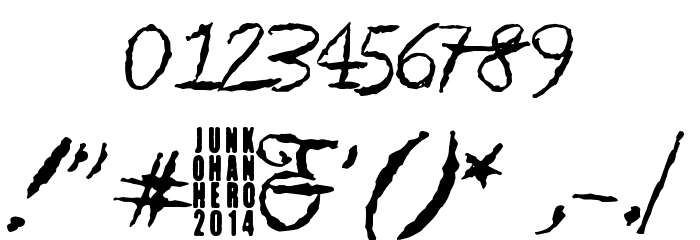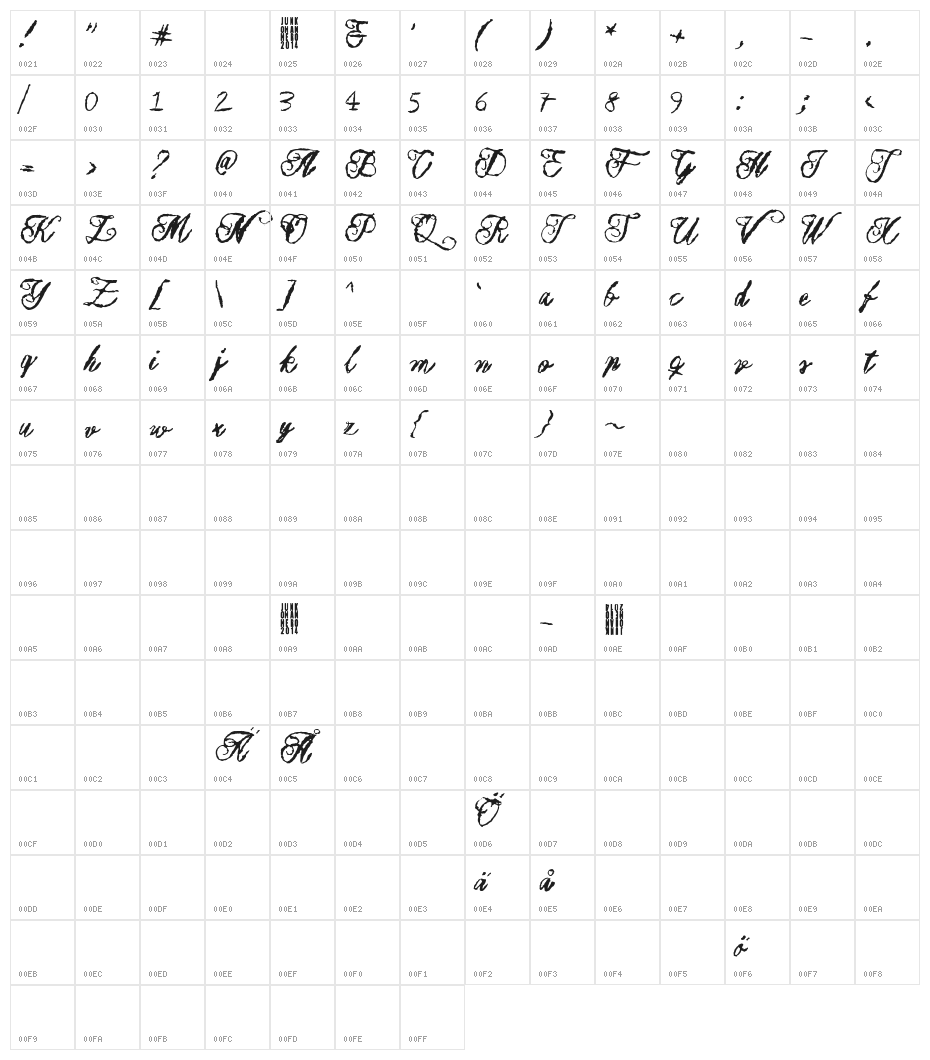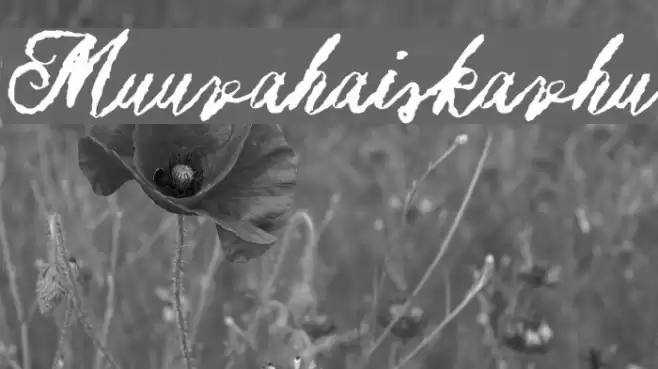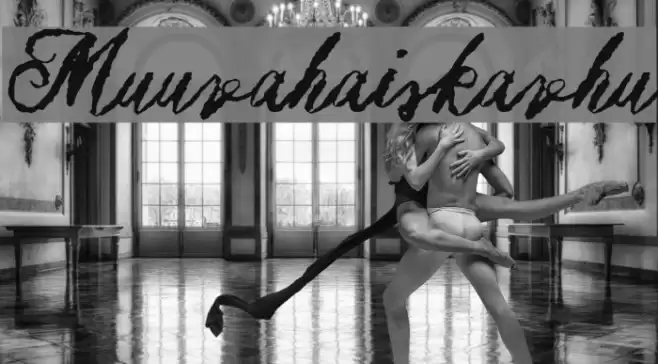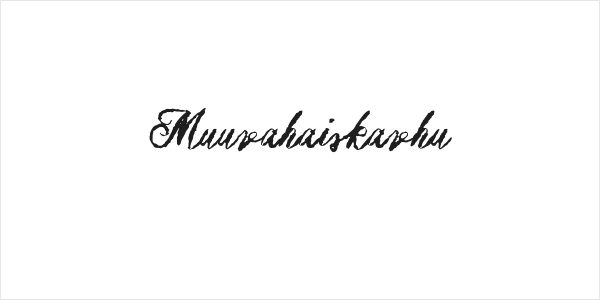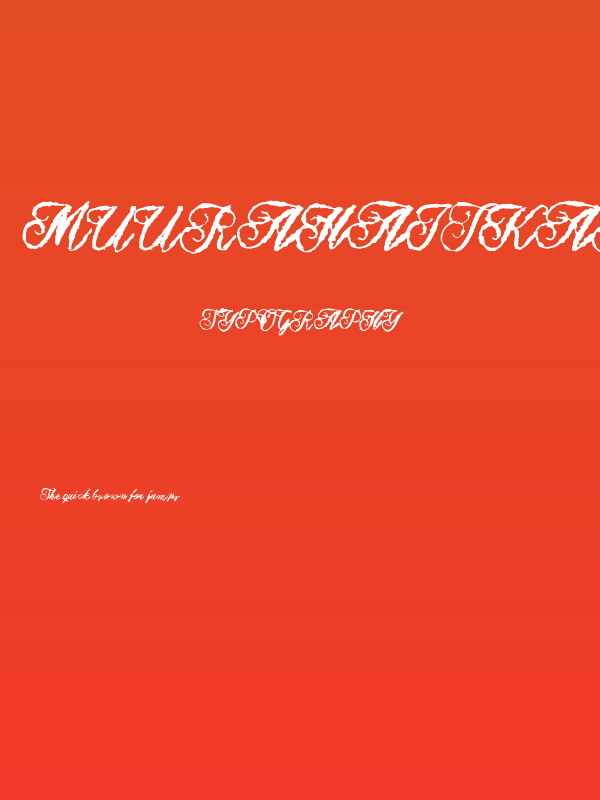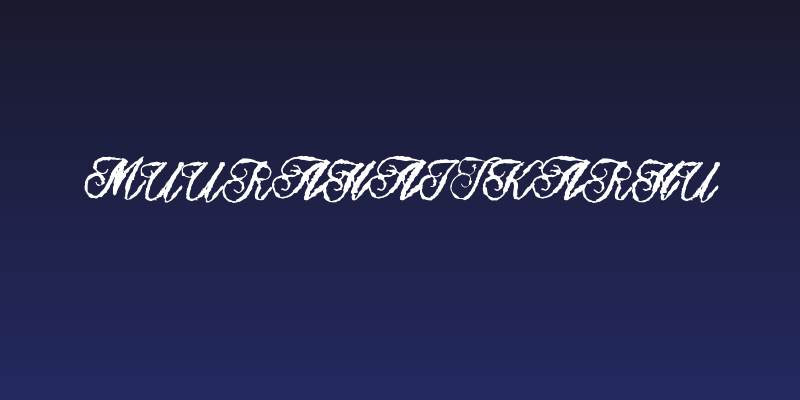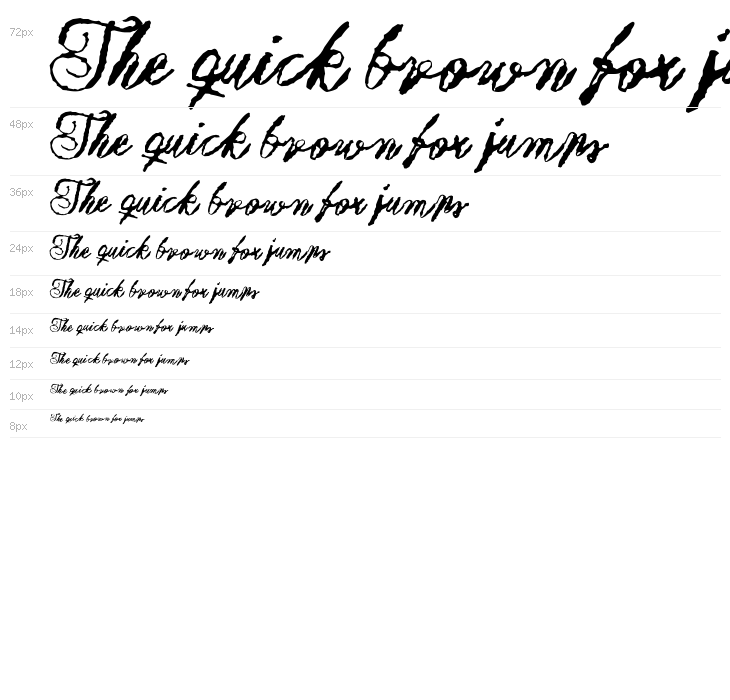
Muurahaiskarhu Font
Muurahaiskarhu Description
This font features a bold, expressive script style with a hand-drawn appearance. The letters are interconnected, creating a fluid and dynamic look. The strokes are thick and have a rough texture, giving it an organic and artistic feel. The uppercase letters are ornate and embellished, while the lowercase letters maintain a more casual and flowing style. Numbers and special characters are consistent with the overall aesthetic, adding to its cohesive design. This font is ideal for projects that require a personal touch or a creative flair.
| Proposed Projects | Ideal for creative projects such as invitations, greeting cards, posters, and branding materials that require a personal and artistic touch. |